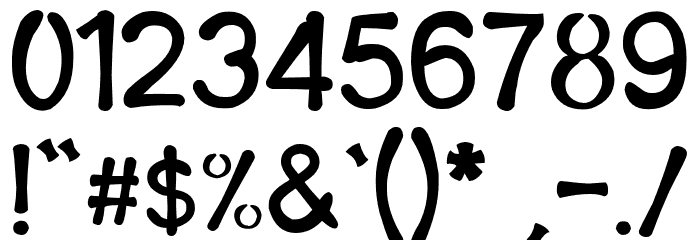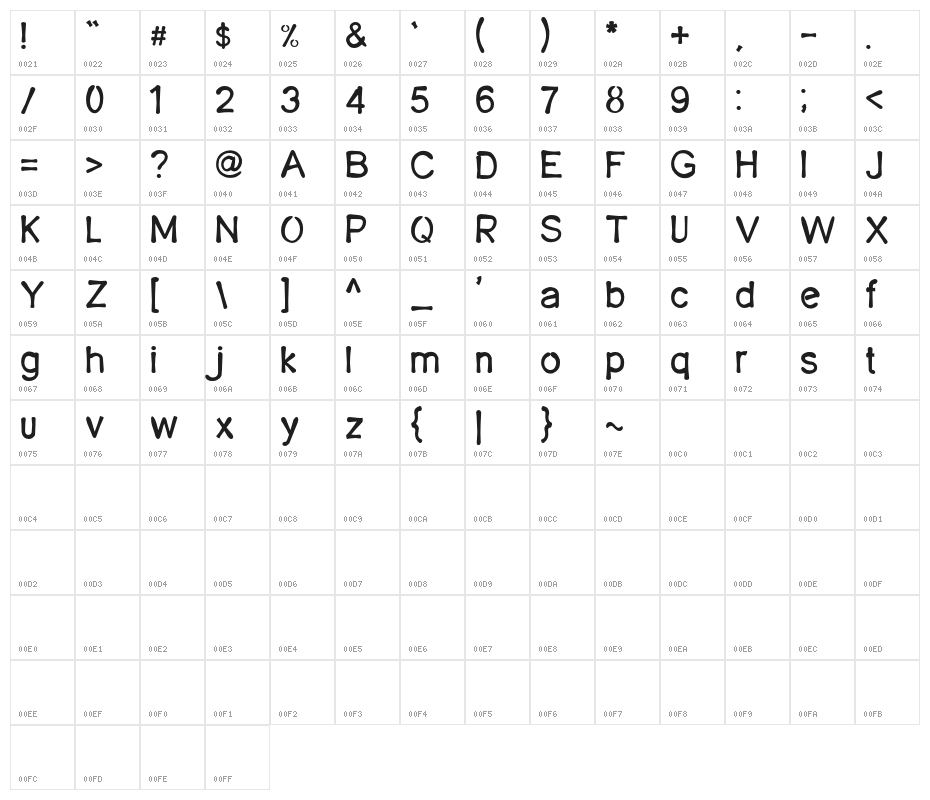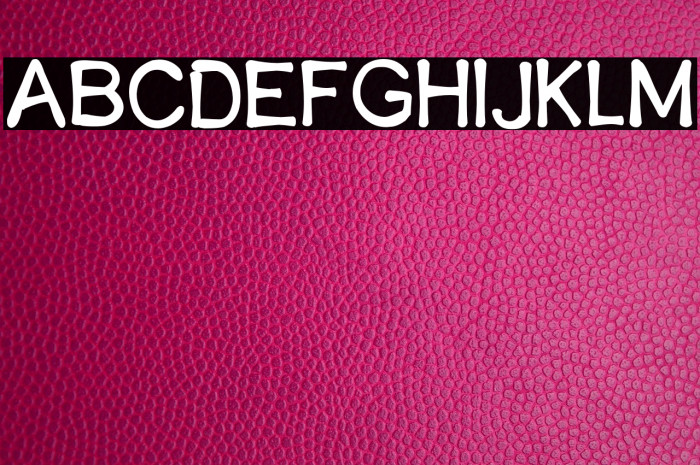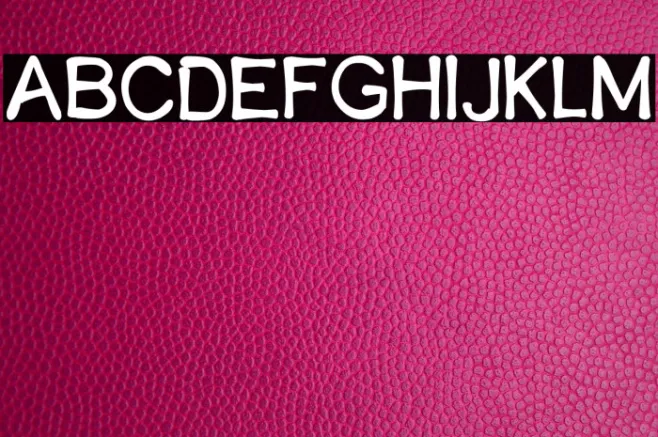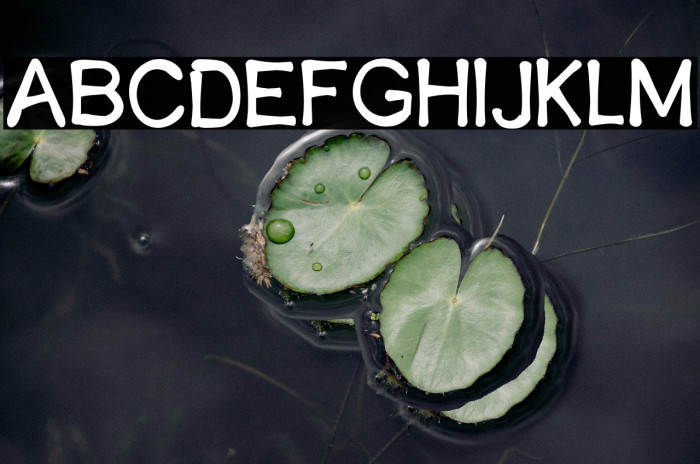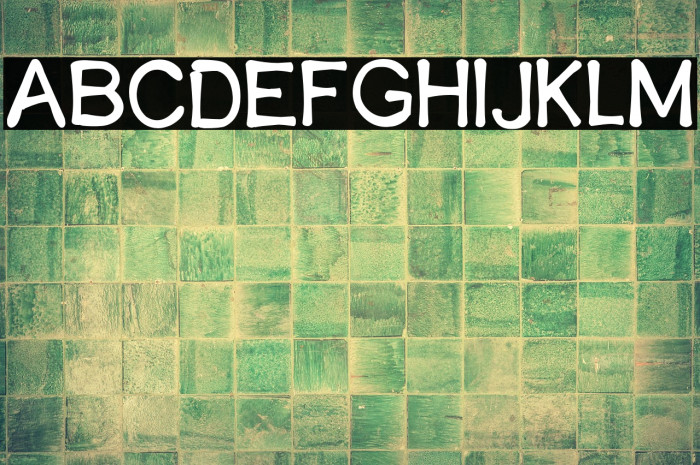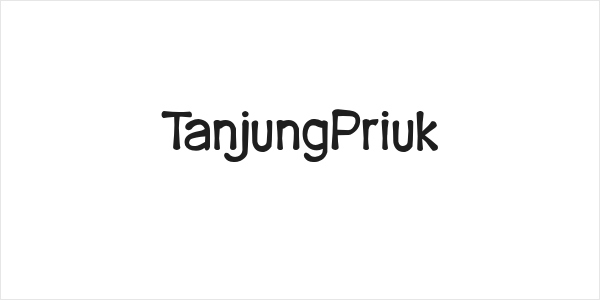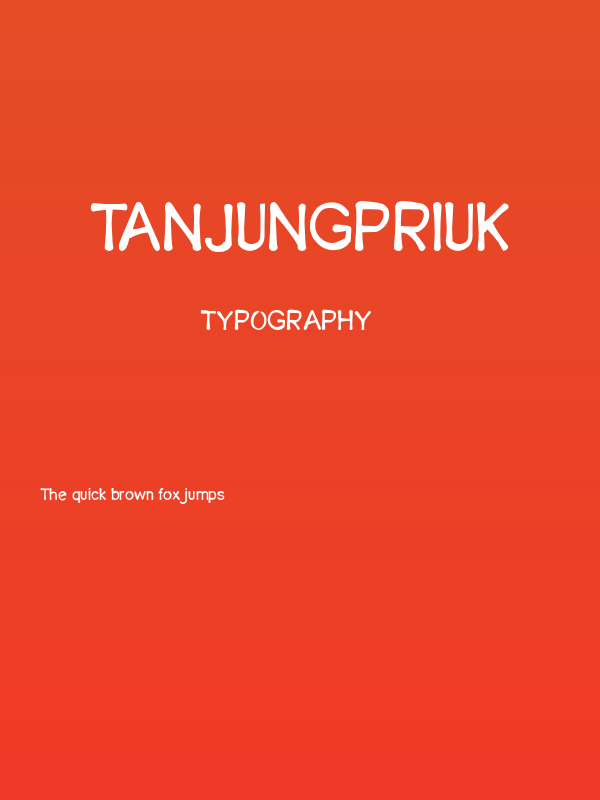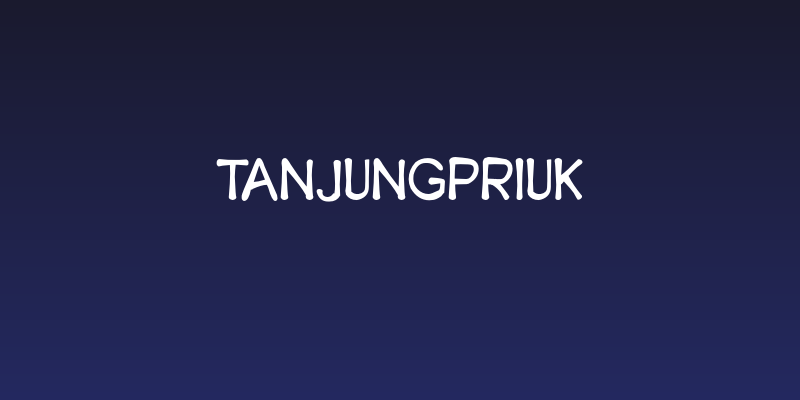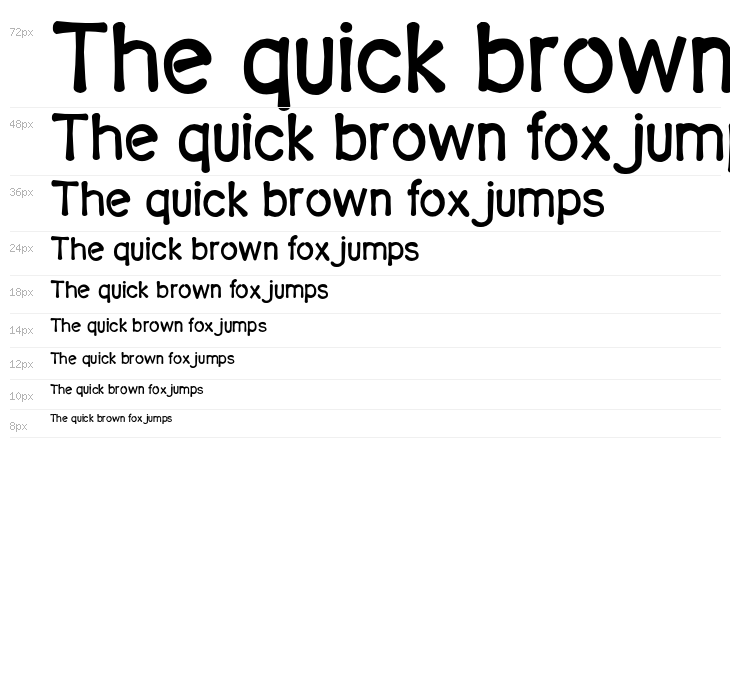
TanjungPriuk Font
TanjungPriuk Description
This font features a playful and rounded design, characterized by its smooth curves and slightly irregular strokes that give it a hand-drawn appearance. The letters are bold and have a consistent weight throughout, making them highly legible. The uppercase and lowercase letters maintain a uniform style, with the lowercase being slightly smaller in size. Numbers and special characters follow the same design principles, ensuring a cohesive look across all text. The font's whimsical nature makes it suitable for creative and informal projects.
| Proposed Projects | Ideal for children's books, playful branding, greeting cards, and informal invitations. |